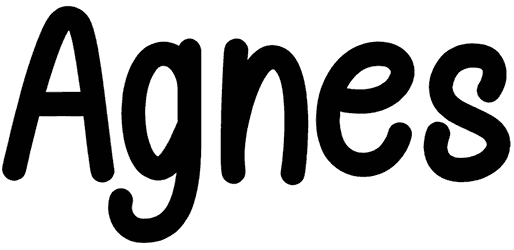
Agnes Font
The first step in designing high-end graphic content is choosing the right script font, such as Agnes. Since it provides you with two different styles, it can easily accelerate the process of creating eye-grabbing products.
Considering the undeniable fact that this happy birthday font carries a sense of viability, momentum, softness, or love, it can be your main option in the realm of designing social media posts, product packaging, stickers, illustrations, or video game brochures.